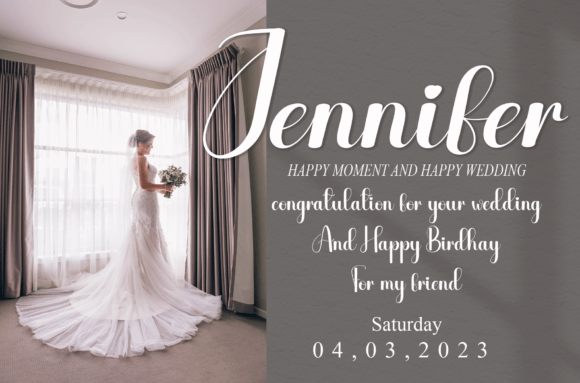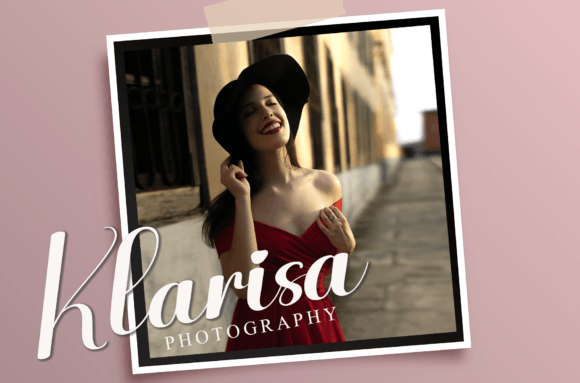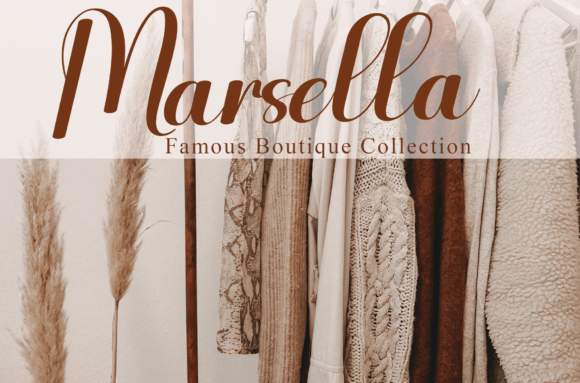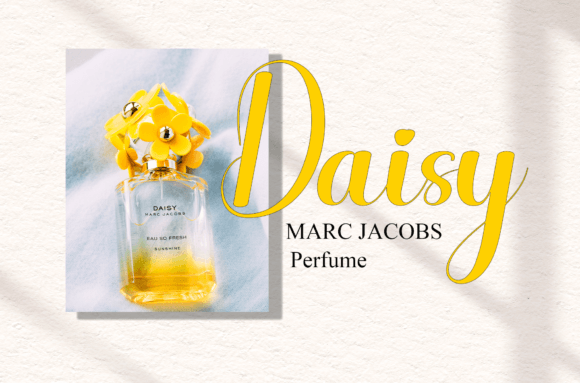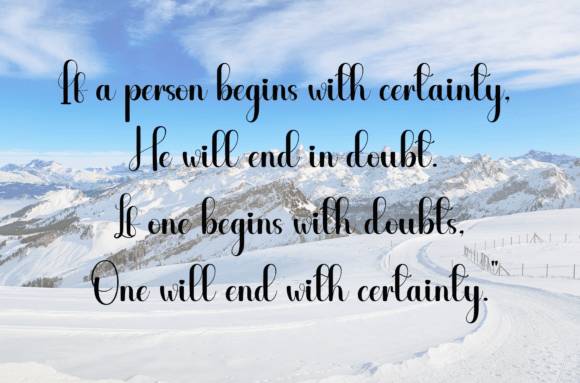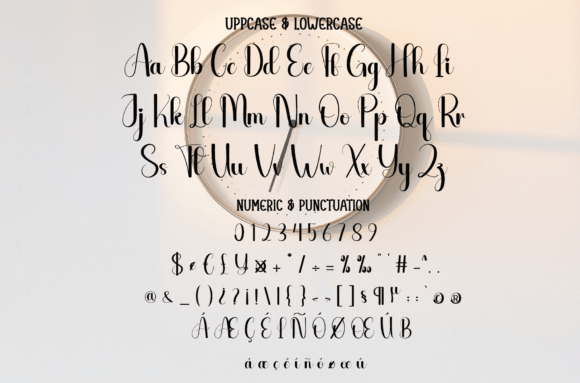
Introduction to Hourly Font
Have you ever sat down with a blank sheet of paper, a pen in hand, and a spark of creativity buzzing in your mind? The possibilities seem endless, and the excitement is palpable. For designers, this moment is a chance to bring their vision to life. One of the most crucial elements in any creative project is the font – and that’s where the Hourly Font comes in.
This delightful handwritten font is a game-changer for designers looking to add a touch of personality to their designs. With its fresh and neat aesthetic, the Hourly Font is perfect for writing wedding invitations, cards, and other projects that require a fun and approachable vibe. Its high quality design and transparent background make it an ideal resource for designers seeking to elevate their work.
Key Features of Hourly Font
- High Quality Design: Hourly Font offers a unique, modern design perfect for creative projects, available for free download.
- Transparent Background: The font features a transparent background, allowing for easy customization and versatility in design.
- Font Size: The font is available in multiple sizes, ranging from 12pt to 72pt, making it suitable for various design applications.
- Resolution: The font is optimized for high-resolution displays, ensuring crisp and clear text rendering.
- Unique Characteristics: Hourly Font features a distinctive, hand-drawn style that adds a touch of personality to any creative project.
Honest Review: Hourly Font
I recently had the chance to experiment with the Hourly Font, a design resource I discovered online. My experience was a mix of excitement and some drawbacks.
- High-quality glyphs and a clean aesthetic that’s perfect for creative projects.
- Transparent background, which allows for seamless integration with various design elements.
- Limited font weight and style options, which might not be suitable for complex designs.
Overall, I found the Hourly Font to be a decent addition to my design arsenal, but it’s not a game-changer. If you’re working on a simple project and need a clean, modern font, this might be worth a try. However, for more complex creative projects, you might want to explore other options.
Hourly Font
The Hourly Font is a high-quality design resource perfect for any creative project. With its transparent background and crisp typography, it’s ideal for adding a touch of sophistication to your designs.
Tips for Getting the Most Out of Hourly Font
To get the most out of the Hourly Font, use it in conjunction with other design elements to create a cohesive and visually appealing design. Experiment with different font sizes and colors to add depth and interest to your project.
Common Use Cases for Hourly Font
The Hourly Font is perfect for use in business cards, resumes, and other professional documents. It’s also great for use in creative projects such as posters, flyers, and social media graphics.